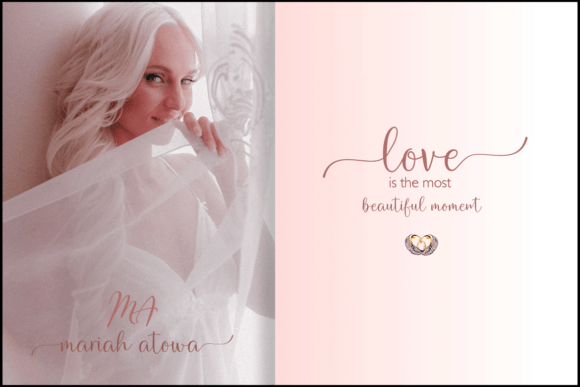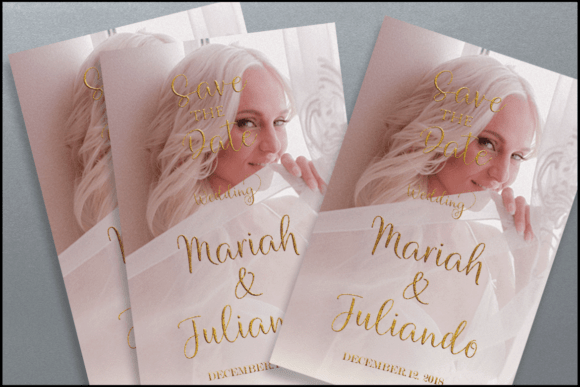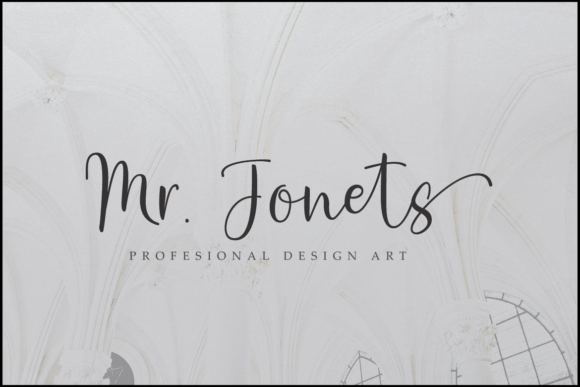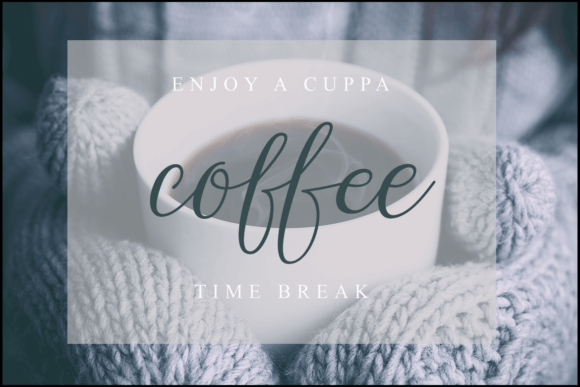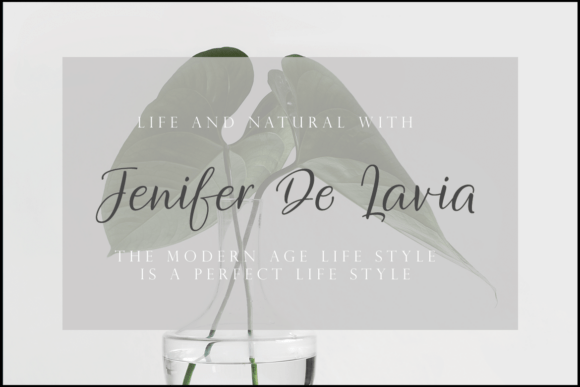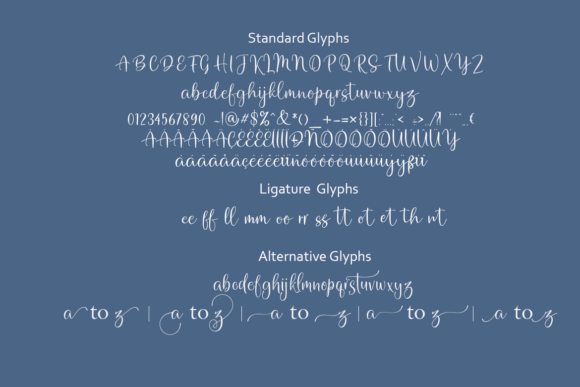
Introducing Heirley Script Font: Elevate Your Designs with Elegance
In the world of typography, script fonts hold a special place for their ability to add a touch of elegance and sophistication to any design. Among these, the Heirley Script Font stands out as a versatile and stylish choice for designers and crafters alike. This beautifully crafted font is designed to bring a handwritten touch to various projects, making it perfect for applications where a personal and luxurious feel is desired.
The Charm of Heirley Script Font
Heirley Script is a stylish and incredibly elegant script font that has been meticulously designed to offer a unique blend of classic charm and modern appeal. Its fluid strokes and graceful letterforms make it an ideal choice for projects that demand a high level of sophistication. Whether it’s wedding invitations, thank you cards, quotes, greeting cards, logos, or business cards, Heirley Script Font can elevate your designs to a new level of elegance.
One of the key advantages of Heirley Script Font is its versatility. It can be used across a wide range of design projects, including:
- Wedding Invitations: Add a touch of romance and sophistication to your wedding invitations, making them truly unforgettable.
- Thank You Cards: Express your gratitude with style and elegance, perfect for special occasions.
- Quotes and Greeting Cards: Bring inspiration and warmth to your messages with a font that feels both personal and luxurious.
- Logos and Business Cards: Stand out in the business world with a logo and business card design that exudes professionalism and elegance.
Why Choose Heirley Script Font?
Choosing Heirley Script Font for your design projects comes with numerous benefits:
- Elegant Aesthetic: Its stylish and elegant design ensures that your projects look sophisticated and refined.
- Handwritten Touch: It adds a personal and human touch to your designs, making them more engaging and relatable.
- Easy to Read: Despite its elegant nature, Heirley Script Font remains clear and easy to read, making it functional as well as beautiful.
- Versatile: Its versatility means you can use it for a wide range of projects, from personal to professional.
Tips for Using Heirley Script Font
To get the most out of Heirley Script Font, consider the following tips:
- Pair with Simplicity: For maximum impact, pair Heirley Script with simpler fonts or backgrounds to ensure your message remains the focus.
- Experiment with Colors: While the font itself is elegant, experimenting with different colors can help match your design’s mood and theme.
- Play with Sizes: Don’t be afraid to vary the font size to create visual hierarchy and add emphasis to key parts of your design.
Heirley Script Font is a powerful tool for designers and crafters looking to add a touch of elegance and sophistication to their projects. Its versatility, elegance, and readability make it an excellent choice for a wide range of applications. By incorporating Heirley Script Font into your designs, you can create stunning and memorable pieces that stand out from the crowd. Whether you’re designing for a special occasion or creating a brand identity, Heirley Script Font is sure to elevate your work to new heights of style and sophistication.